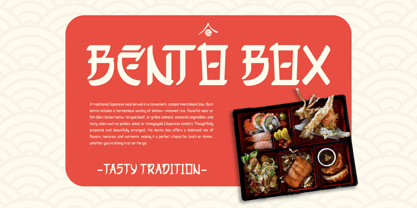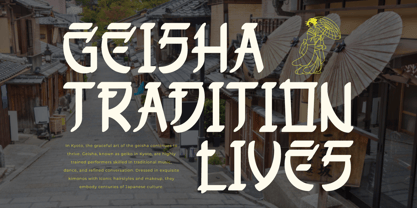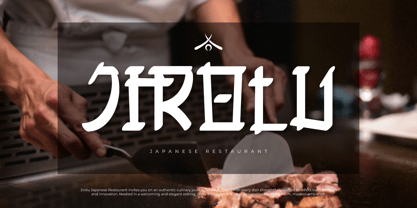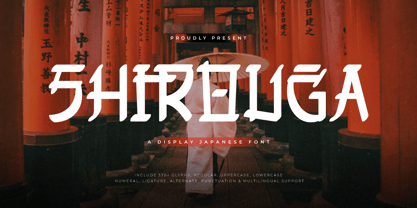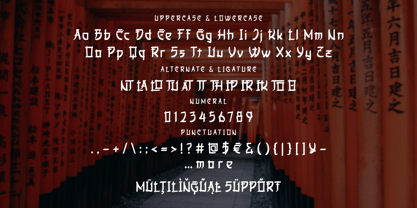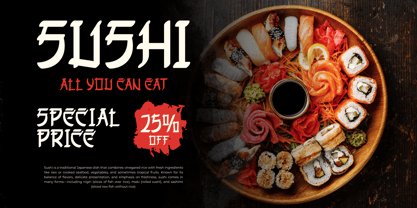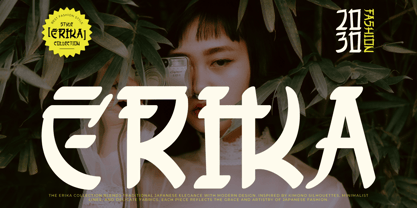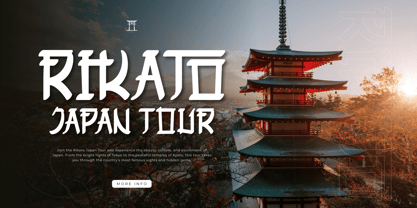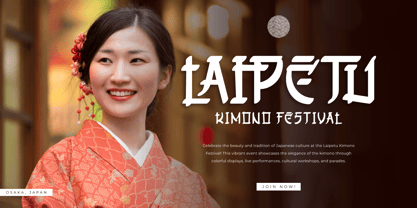
Shirouga
by Twinletter
The Shirouga Font Family was designed by Rozikan and published by Twinletter. Shirouga contains 1 styles. More about this family
Unleash the essence of Japan in your design with Shirouga, a captivating display font inspired by traditional and modern Japanese aesthetics. Shirouga blends bold strokes with clean, minimal lines that evoke the feel of brush calligraphy, yet retain a modern and versatile display style.
Perfect for branding, poster titles, packaging, restaurant menus, or any design that needs an oriental flair, Shirouga brings authenticity and elegance. Each character is crafted with attention to detail, echoing the harmony of structure and flow found in Japanese art. Whether you’re designing for sushi bars, samurai games, or travel ads, Shirouga instantly transports your audience to the heart of Japan.
Designers: Rozikan Rozikan
Foundry: Twinletter